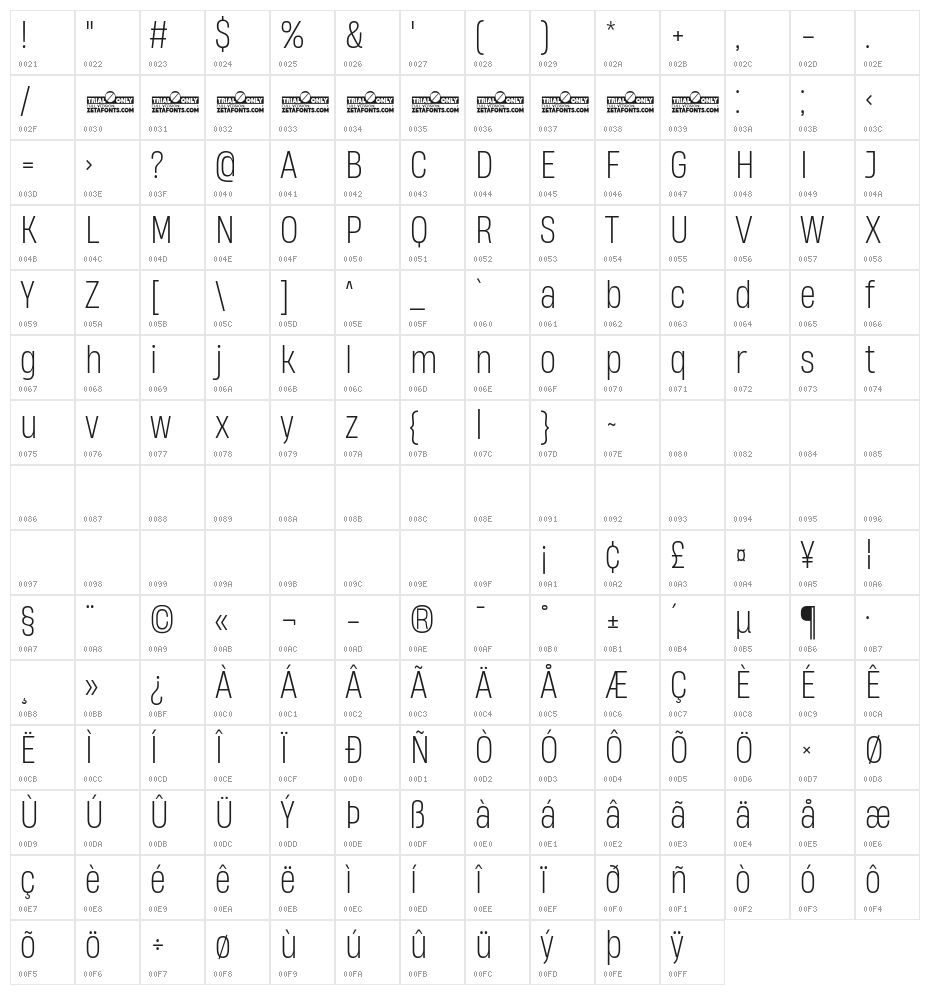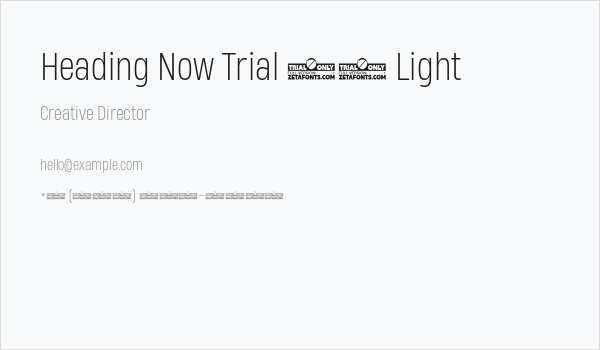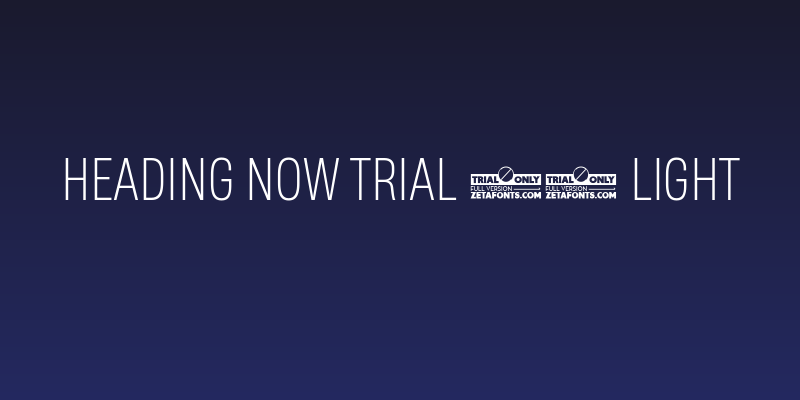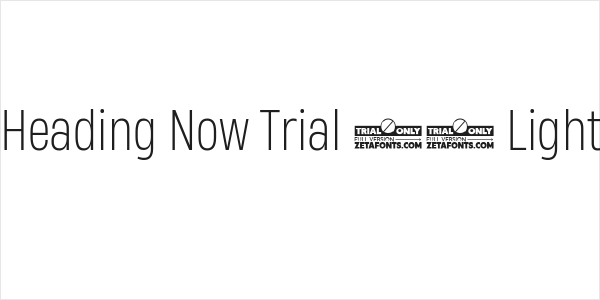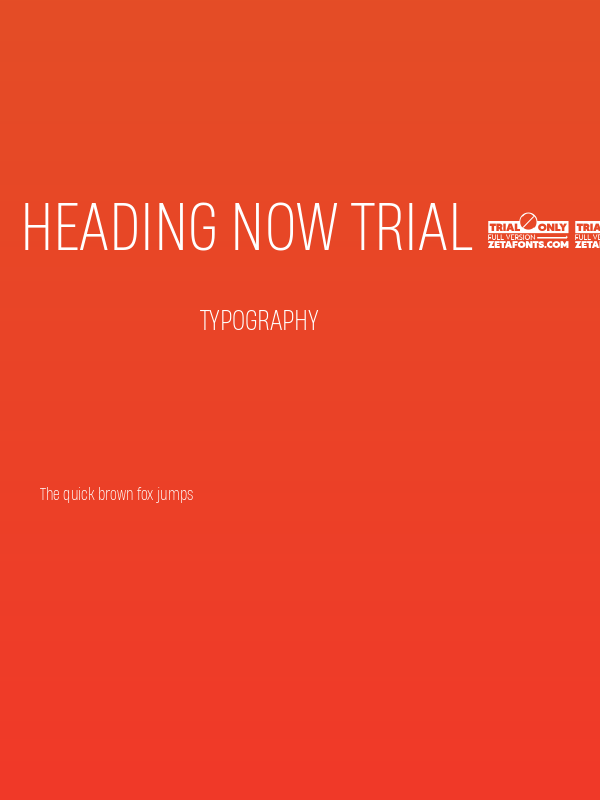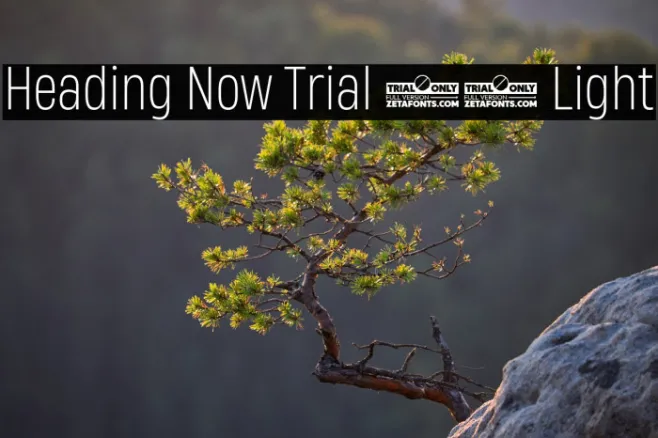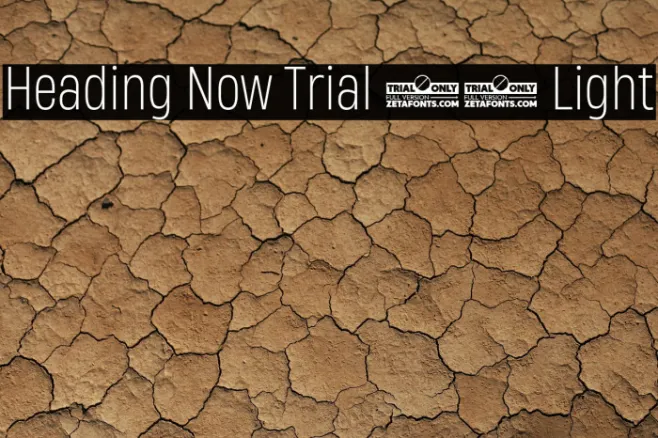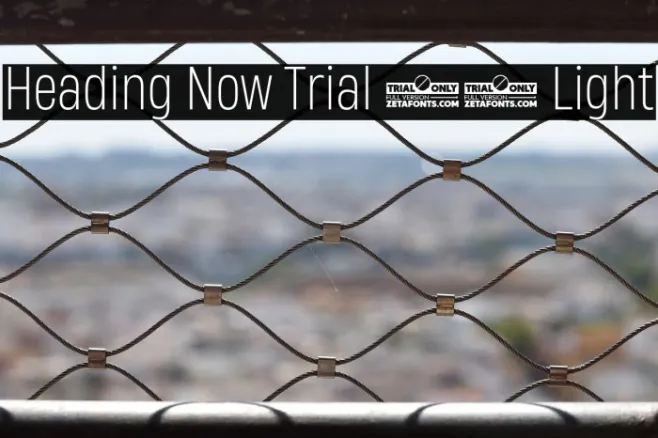
Heading Now Trial 52 Light Font
Heading Now Trial 52 Light Description
This font features a clean and modern sans-serif style with a light weight, offering a sleek and contemporary appearance. The characters are tall and narrow, providing an elegant and sophisticated look. The uppercase and lowercase letters maintain a consistent height, contributing to a uniform and balanced design. The numerals and special characters are crafted with precision, ensuring readability and clarity. The overall design is minimalistic, making it suitable for a wide range of applications where a modern and professional aesthetic is desired.